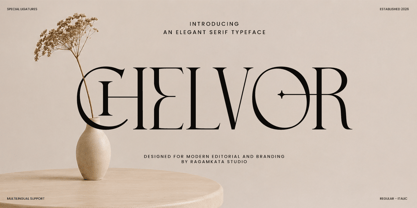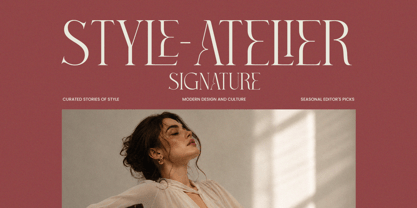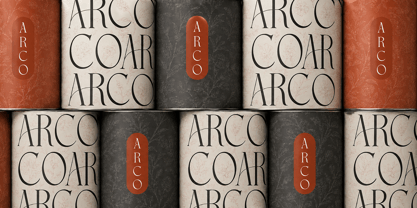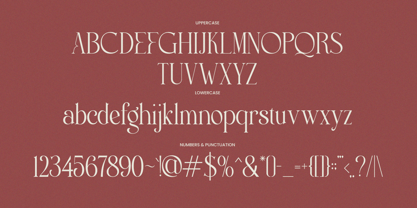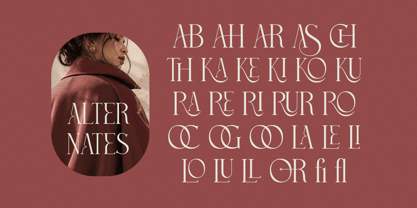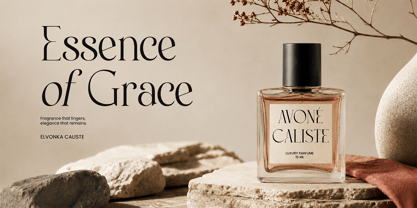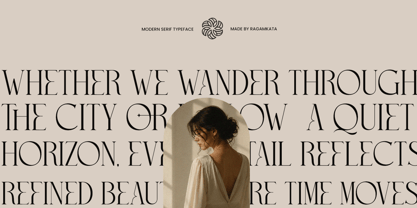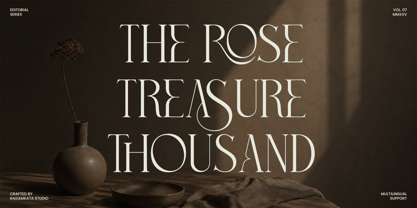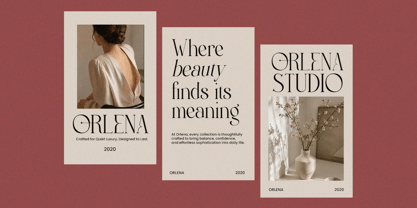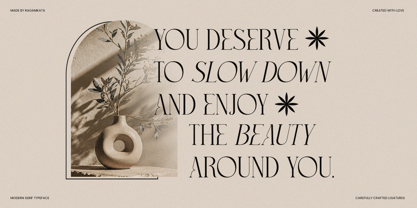
Chelvor
por RagamKata
Chelvor is a stylish ligature serif font that blends timeless elegance with modern sophistication. Designed with refined high-contrast letterforms, graceful curves, distinctive ligatures, and elegant alternates, Chelvor creates a luxurious visual experience that instantly elevates any design. Its unique character makes it an excellent choice for designers seeking typography that feels both artistic and premium.
Perfect for luxury branding, fashion editorials, logos, beauty and cosmetic packaging, perfume labels, wedding invitations, magazines, book covers, social media, boutique businesses, and premium marketing materials. Whether you're crafting a sophisticated brand identity or an eye-catching editorial layout, Chelvor delivers exceptional style with effortless readability.
Chelvor includes uppercase and lowercase letters, numerals, punctuation, multilingual support, stylish ligatures, and beautiful alternates, giving you the creative freedom to design memorable logos, elegant headlines, refined packaging, and high-end visual identities. It's the perfect serif font for projects that demand elegance, personality, and lasting visual impact.
• Stylistic Ligatures
• Regular and Italic
• Uppercase and Lowercase
• Number, Symbol, and Punctuation
• Multilingual Support
Diseñadores: Yogiswhara Dio Prakoso Riadi
Fundición: RagamKata